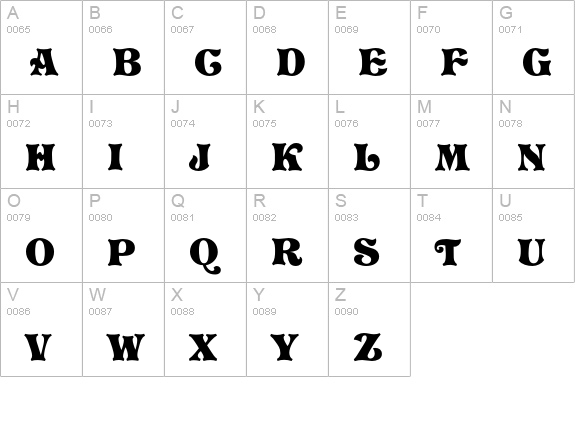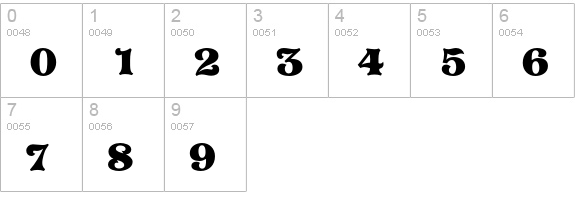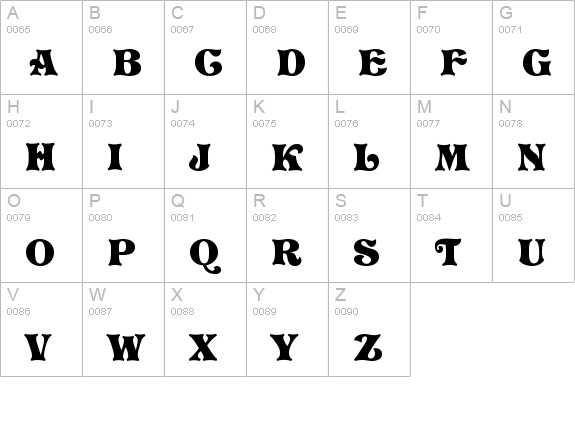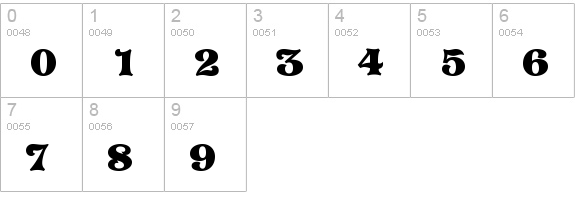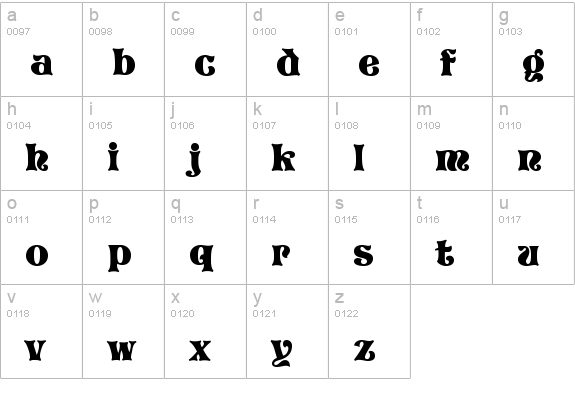
Pretoria-Normal Font Details
Pretoria-Normal is the standard, neutral variant in the Pretoria typeface family \xE2\x80\x94 well suited to general body text, paragraphs, and standard typographic work.
Pretoria-Normal font is a charming and versatile typeface designed to bring a touch of elegance to your projects. With its clean lines and classic appearance, this font is perfect for a wide range of design applications, from invitations to branding to editorial design. The timeless look of Pretoria-Normal font makes it a great choice for both print and digital projects, adding a sophisticated flair to any design. This font is freely available to download at FontsMarket.com, making it easy to incorporate into your creative work without breaking the bank. Whether you're a seasoned designer looking for a new go-to font or a novice looking to elevate your projects, Pretoria-Normal font is sure to impress with its timeless style and versatility. Download it today and add a touch of sophistication to your designs.